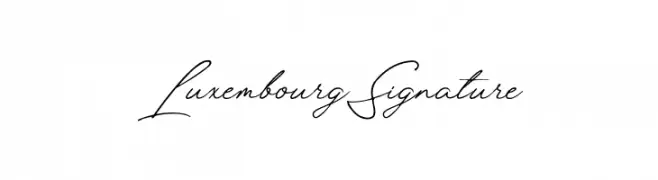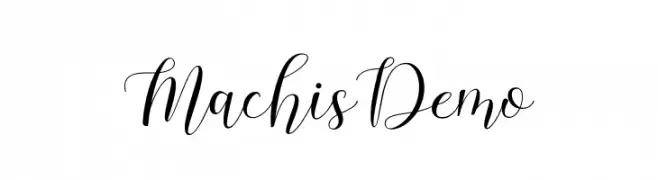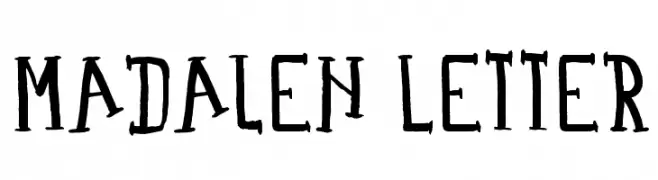
A playful, bold font with rounded, thick strokes and a whimsical touch.
A delicate and flowing script font with elegant curves and graceful movement.
A modern, elegant font with clean lines and balanced structure.
A sophisticated script font with graceful, flowing lines and a handwritten signature style.
A bold, modern font with a strong, slightly condensed design.
An elegant, flowing script font with bold, expressive strokes.
An elegant script font with flowing, interconnected letters and calligraphic style.
A rustic, hand-drawn font with bold, playful characters and uneven strokes.
A flowing, cursive font with elegant loops and a handwritten style.